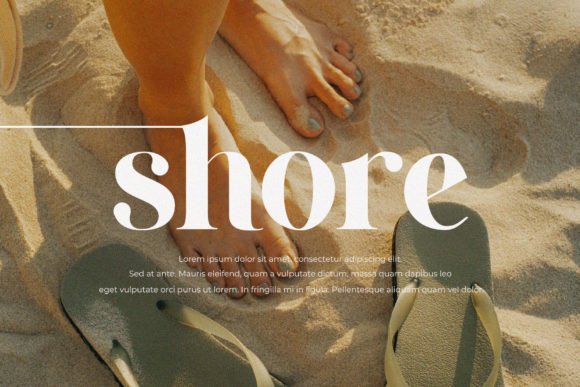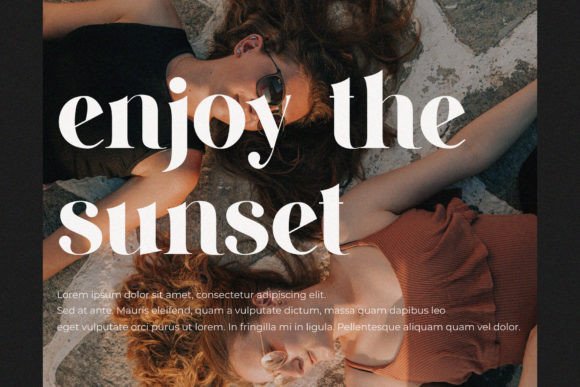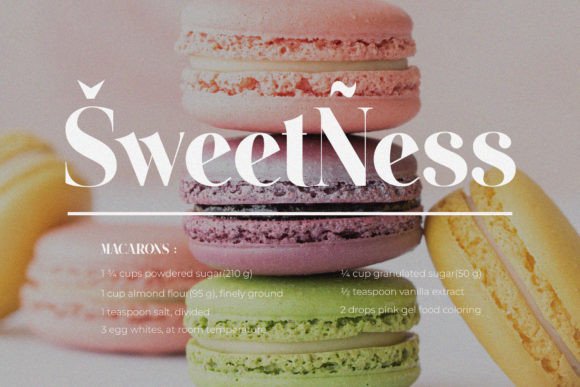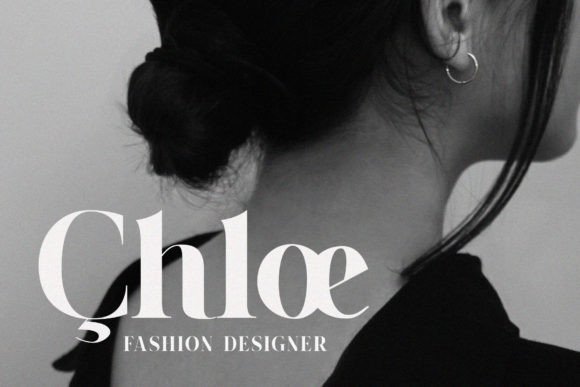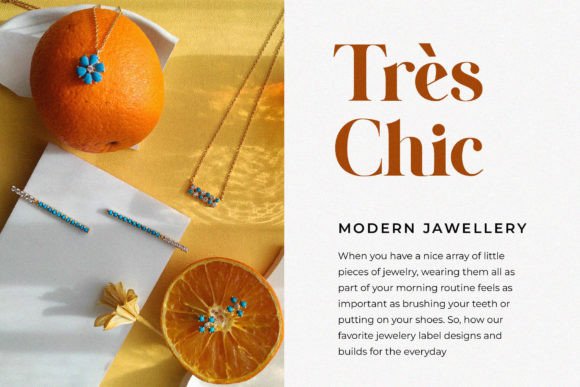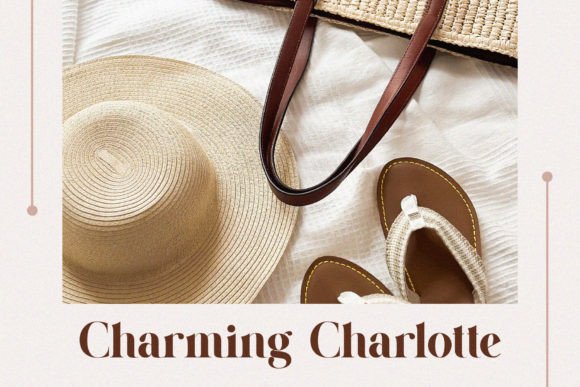
Introduction to Masky Font
Masky is a modern elegant serif font that blends timeless sophistication with contemporary design.
Its graceful letterforms and subtle serifs create a sense of refined beauty, making it perfect for projects that demand a touch of class and professionalism Whether used in print or digital media, Morgan exudes an air of confidence and style, making it an ideal choice for conveying a sense of lasting charm.